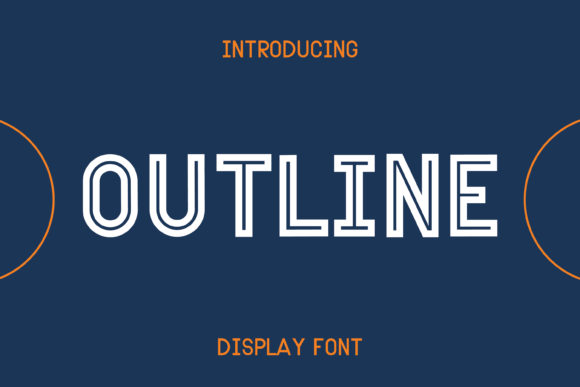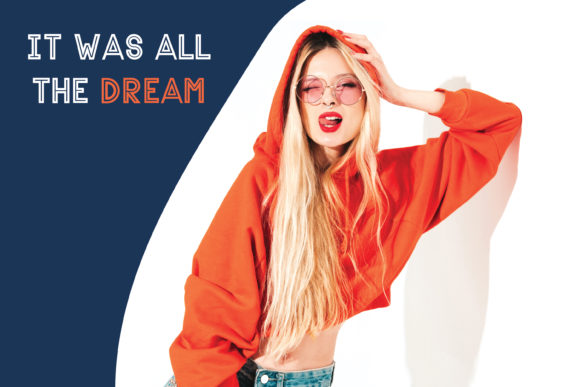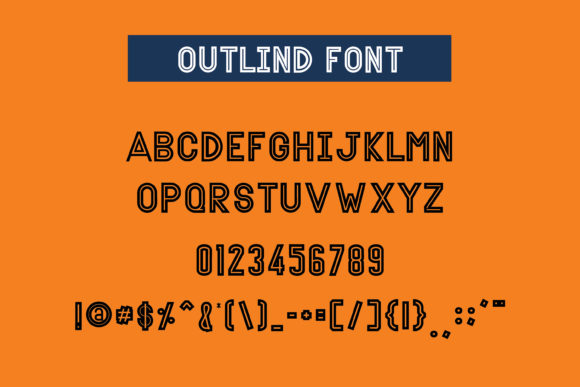
Outline Font
Outline is an elegant sans serif font that blends traditional influences into a contemporary aesthetic. This font is great for branding, logo, greeting cards, business cards, poster, t-Shirt designs, menu design, social media and website.